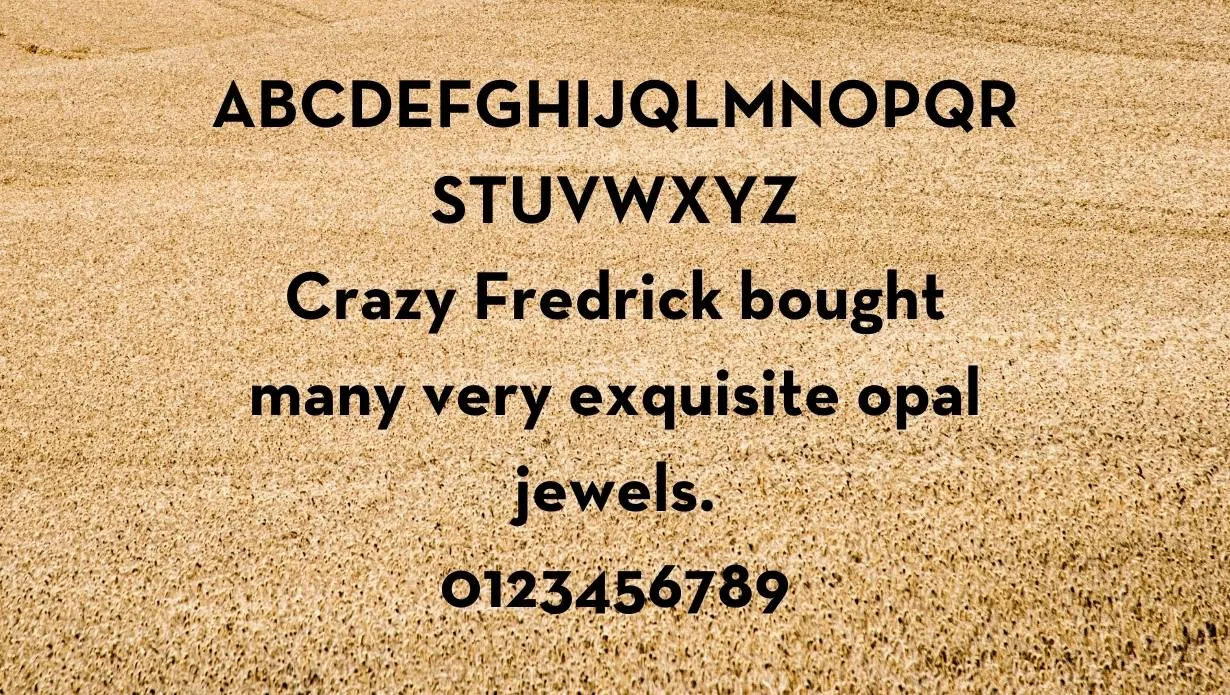
Neutraface Text Font Free Download
About Neutraface Text Font Free Download
Neutraface Text Font Free Download is a modern typeface available in multiple variants and styles.
- Neutraface Text Font Regular
- Neutraface Text Font Bold
- Neutraface Text Font Italic